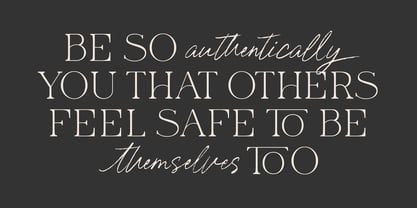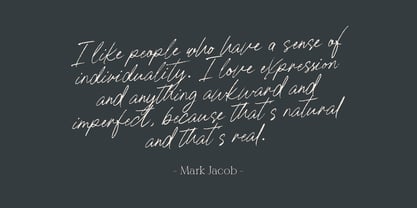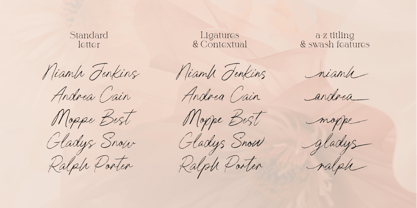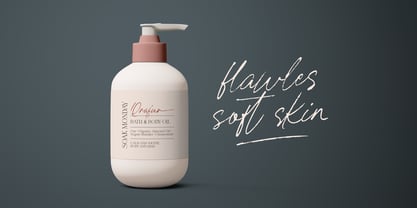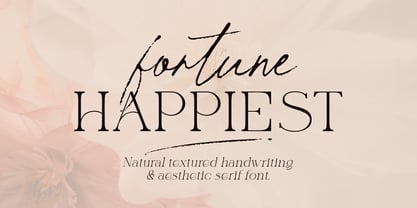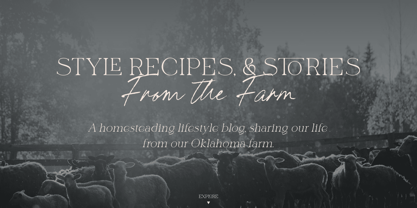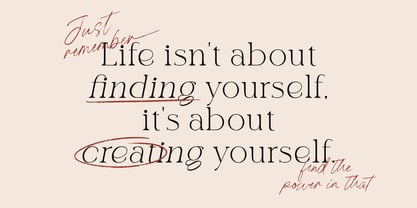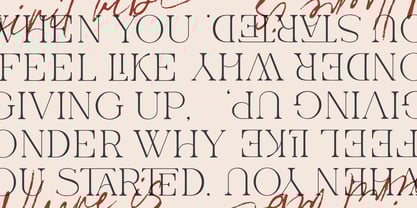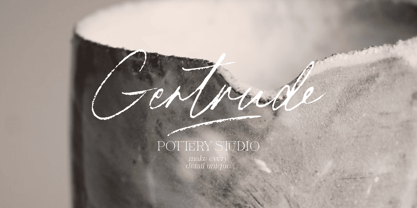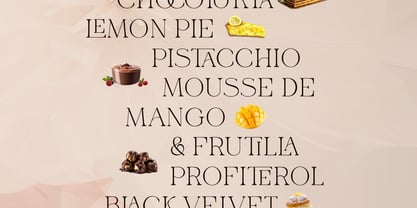
Fortune Happiest
by Atom
The Fortune Happiest Font Family was designed by Eko Kurniawan and published by Atom. Fortune Happiest contains 3 styles and family package options.
Fortune Happiest is a combination of handwritten and serif fonts that create a visually stunning and harmonious design. Fortune Happiest script brings a casual, organic, and personal touch, while Fortune Happiest serif exudes elegance, tradition, and formality. Together, the two complement each other beautifully, blending warmth with sophistication.
The straightforward structure and clean lines, unique ligatures in the capital letters of a serif font often anchor a design, making it perfect for headlines and body text. In contrast, the handwritten font’s natural texture stands out as a decorative element or accent, drawing attention without overwhelming the content, creating a rich, layered visual effect.
This combination can be adapted to a variety of design themes, from modern styles to vintage charm. This font is perfect for branding (such as logos and business cards), product headlines, wedding invitations, social media graphics, and editorial layouts. Pairing these fonts together creates a feel that is both relatable and luxurious. This font conveys a sense of human connection while maintaining a classy, ​​aesthetic look.